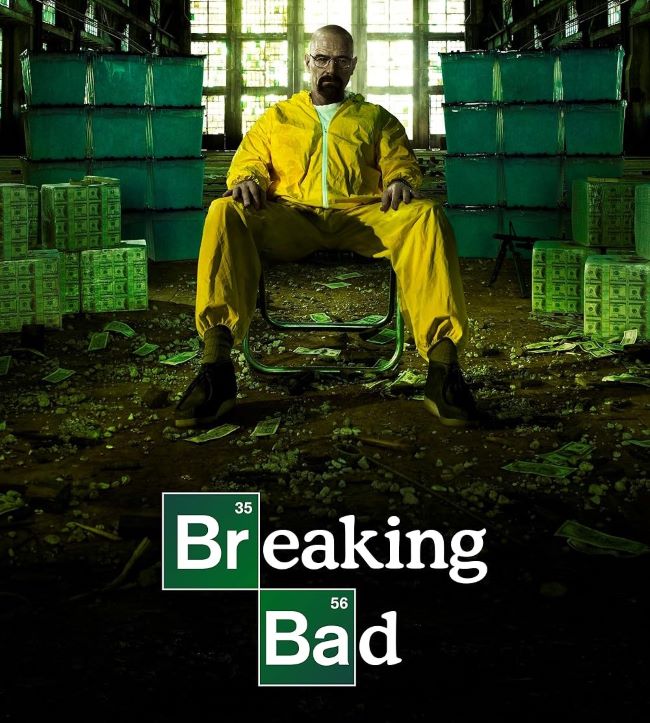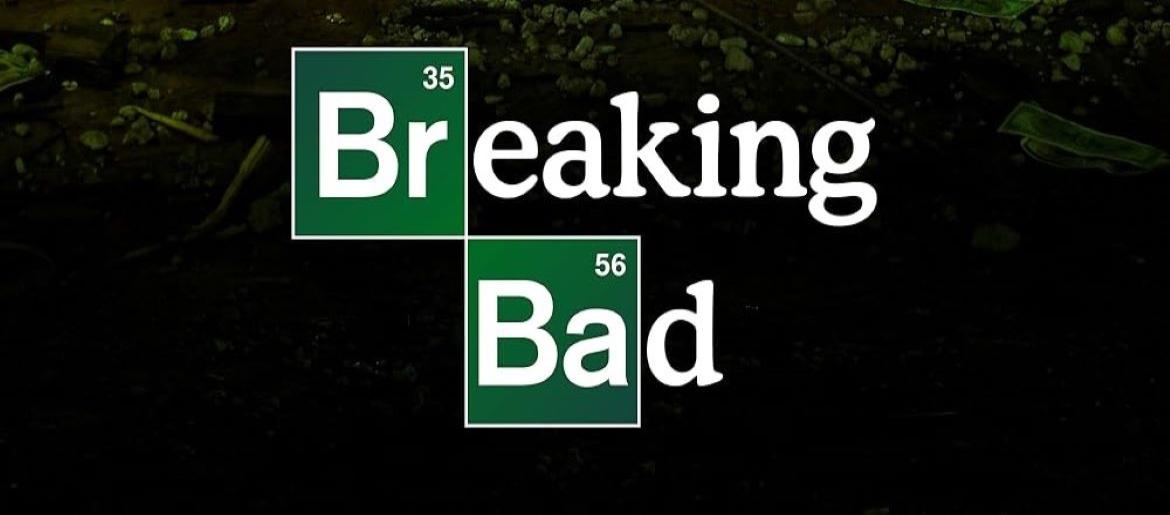
Breaking Bad Font
The Breaking Bad Font captures the sharp, tense atmosphere of the series with its bold, structured lettering. Its clean, industrial look fits perfectly with the show’s themes of chemistry, danger, and transformation. The clever use of periodic table–style elements in the original logo gives the typeface a scientific edge, making it unmistakably tied to Walter White’s world.
This style works well for projects that need a modern, scientific, or suspenseful tone. Its strong structure and subtle edge make it ideal for posters, thriller designs, and anything that draws inspiration from the show’s intense mood.
About Breaking Bad
Premiering in 2008, Breaking Bad follows Walter White, a chemistry teacher turned meth manufacturer, as he descends into a world of crime and moral conflict. Known for its gripping storytelling and layered characters, the series remains one of the most influential dramas of its time.